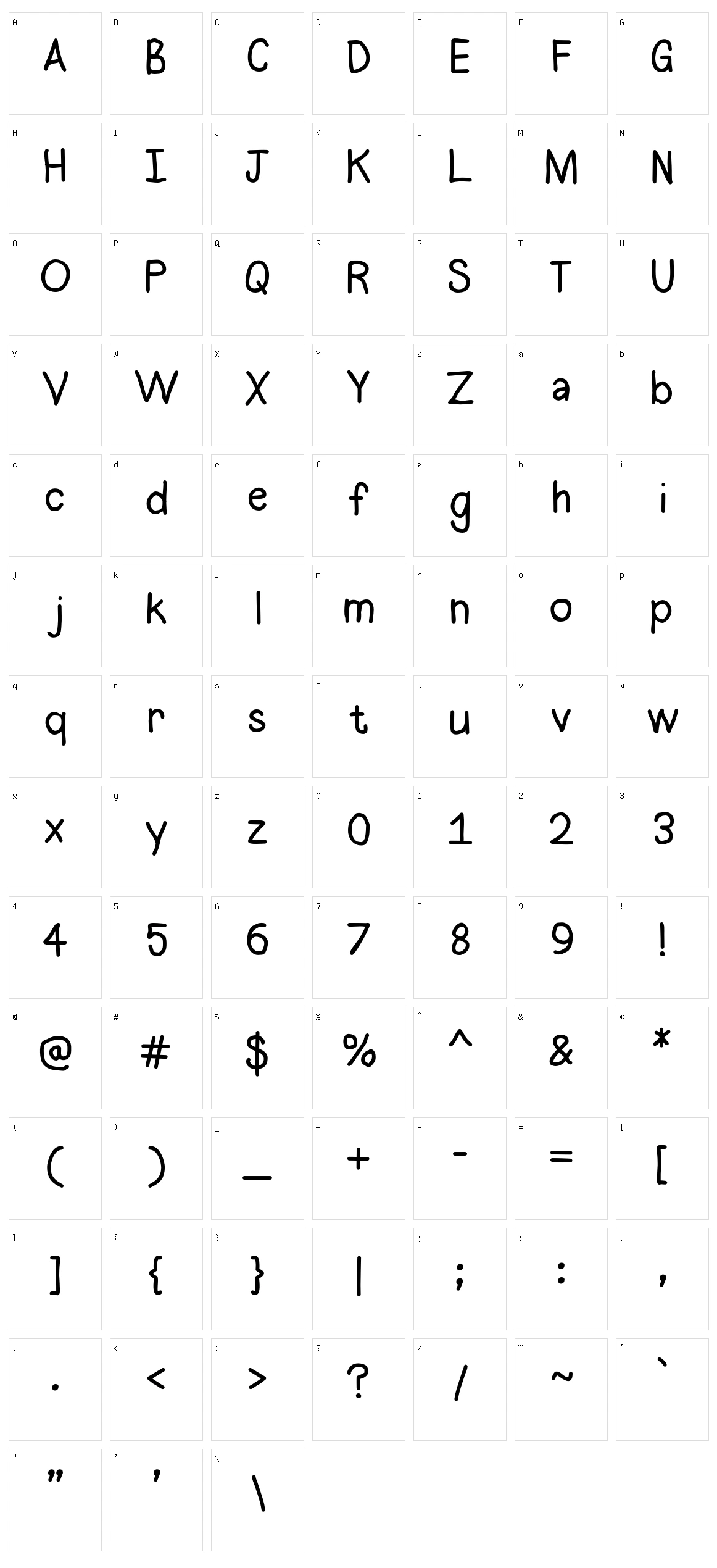
Halogen Font
Halogen is a handwriting font designed only by me using only FontLab Studio 5 - no paper, pencil or sketching was done. Like all other JLH Fonts, this font is in the public domain and comes with the Euro sign.